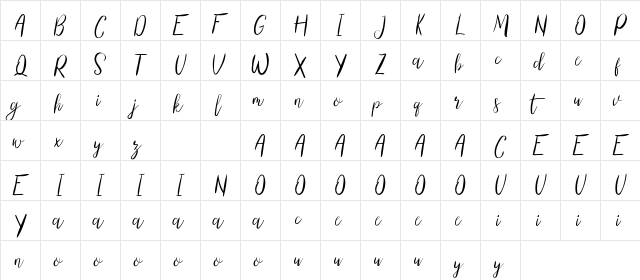
Right Attitude Demo Regular
| Foundry | Edric Studio |
| Designer | Fajar S R |
Design Context for Right Attitude Demo Typeface
Right Attitude Demo is a composed and adaptable typeface that performs quietly and consistently across a wide range of design contexts.